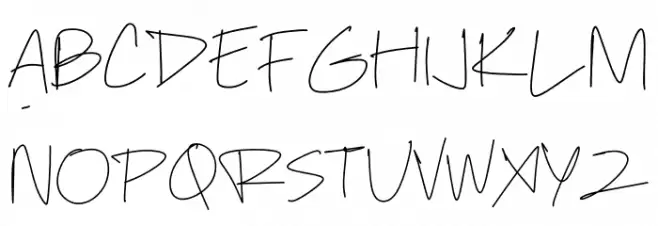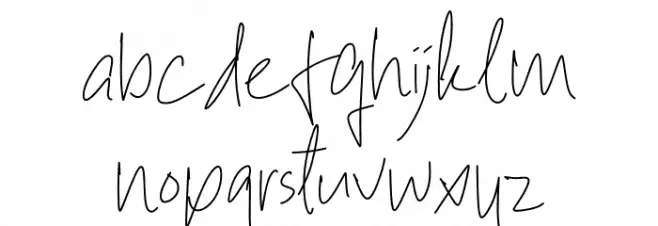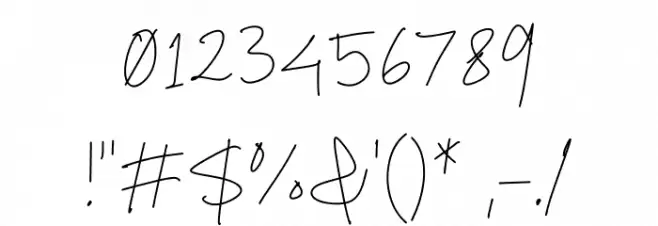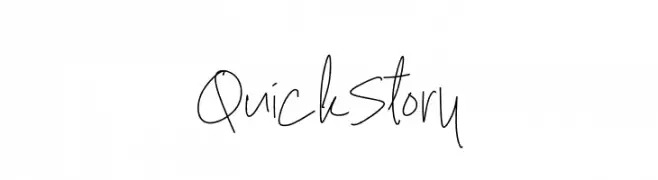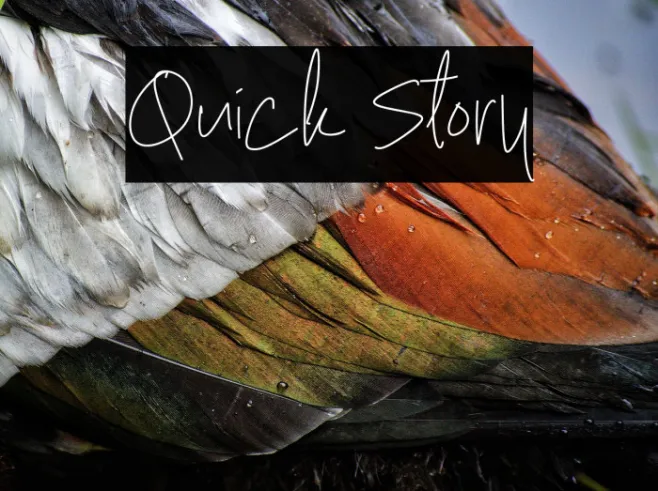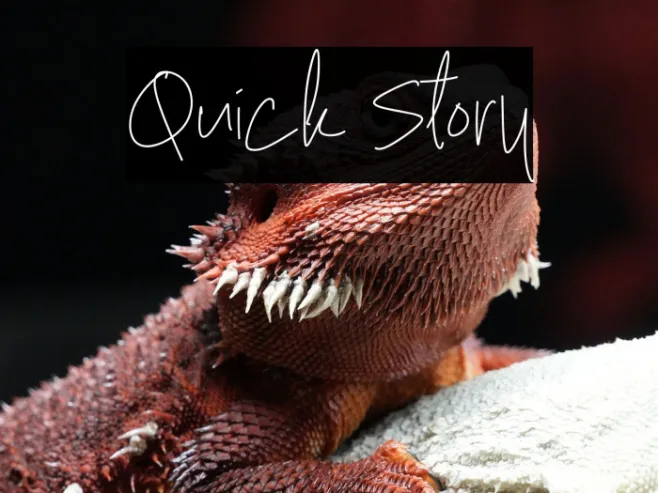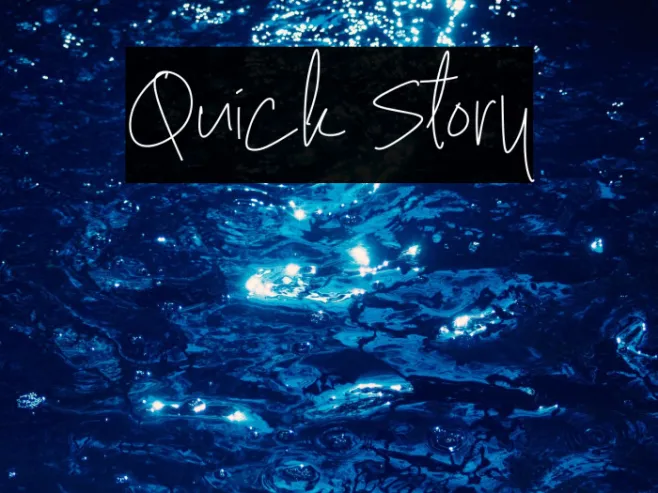
Quick Story
A casual, handwritten font with a loose, informal style and irregular strokes.
Casual handwritten font with a loose style.
- Proposed Projects: Greeting cards, personal notes, informal branding.
- Overall Style: Casual
- Use Case: Informal text, personal projects.